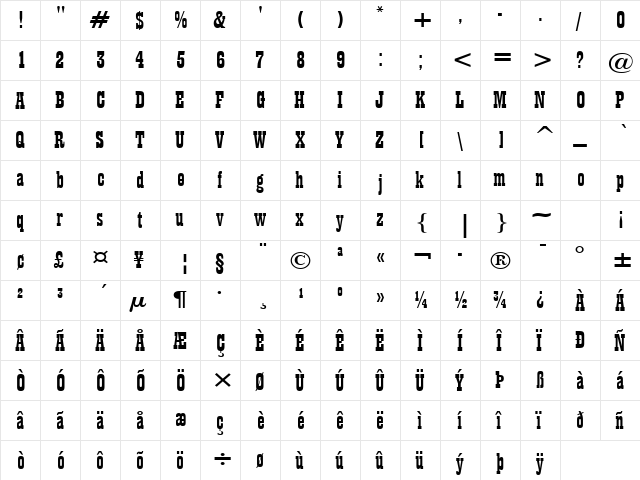
Billboard 11 Wide Normal
Design Context for Billboard 11 Wide Typeface
Billboard 11 Wide takes a measured approach to typography — its balanced proportions and neutral character make it a reliable workhorse for both digital and print work.